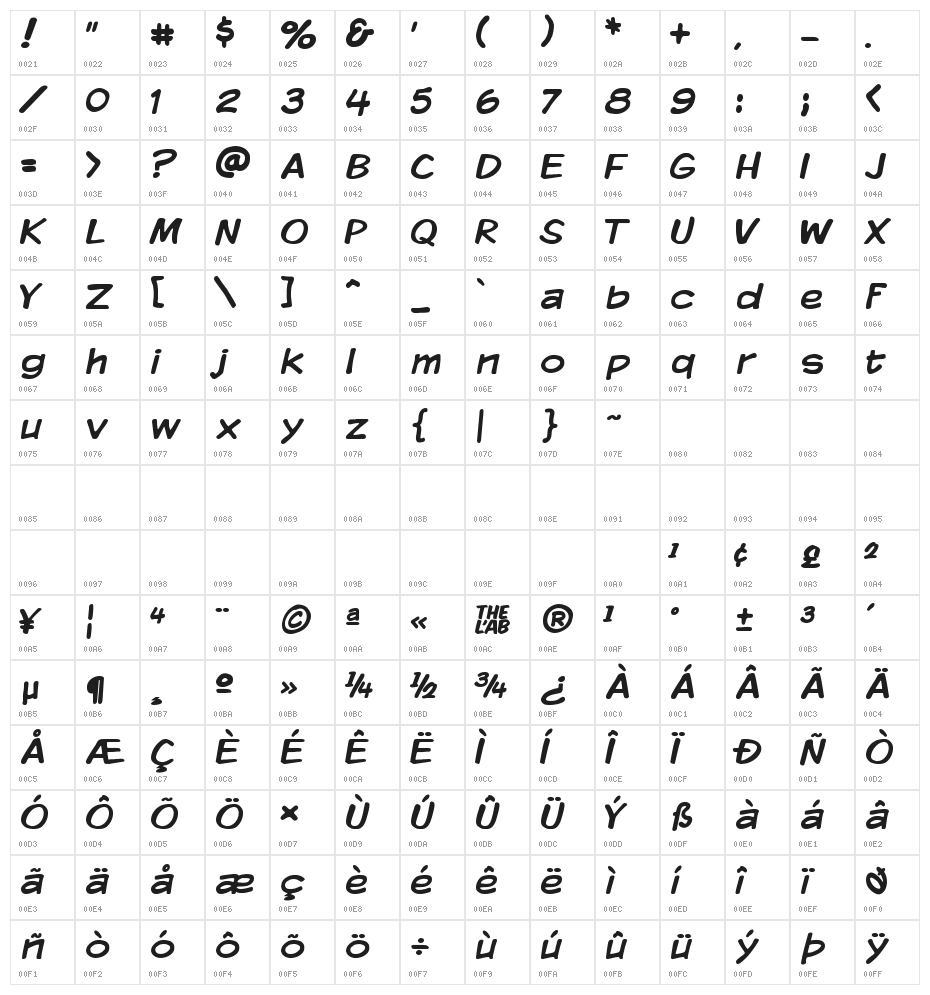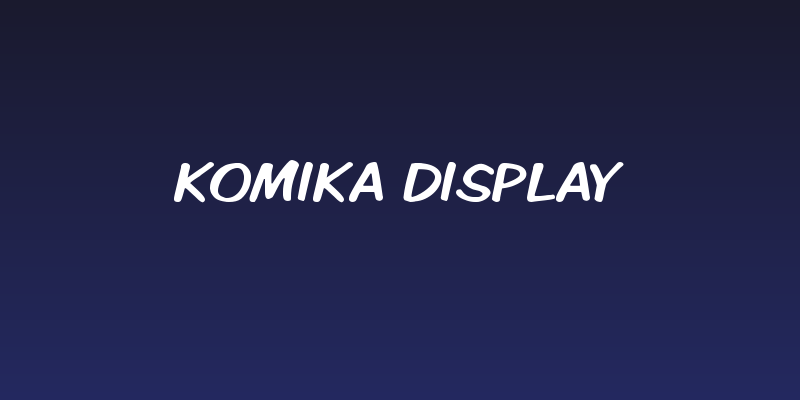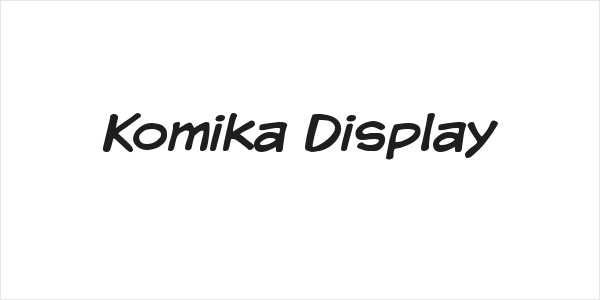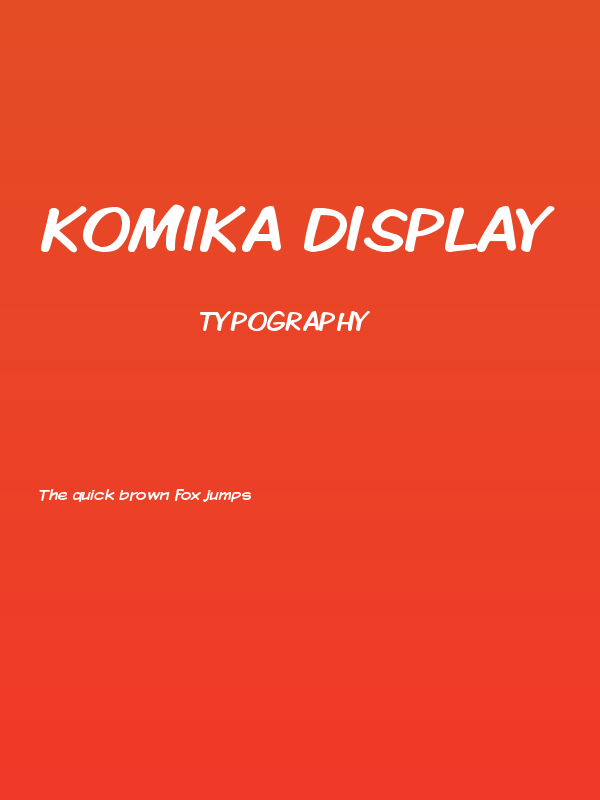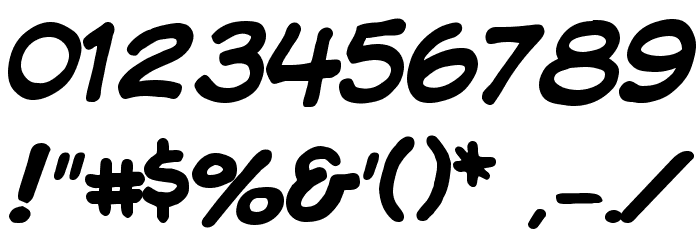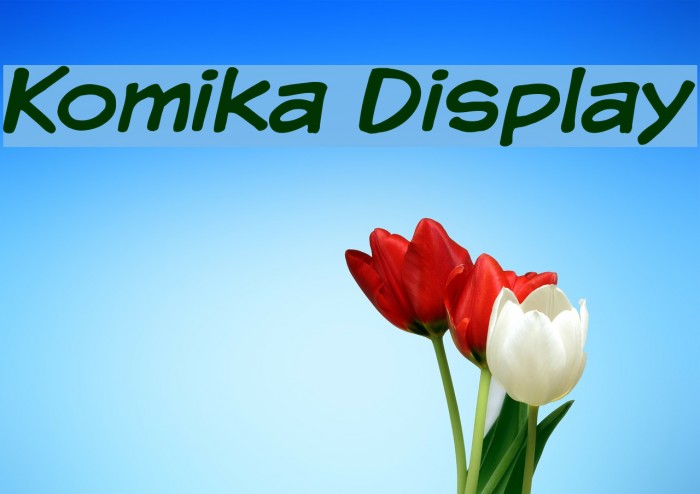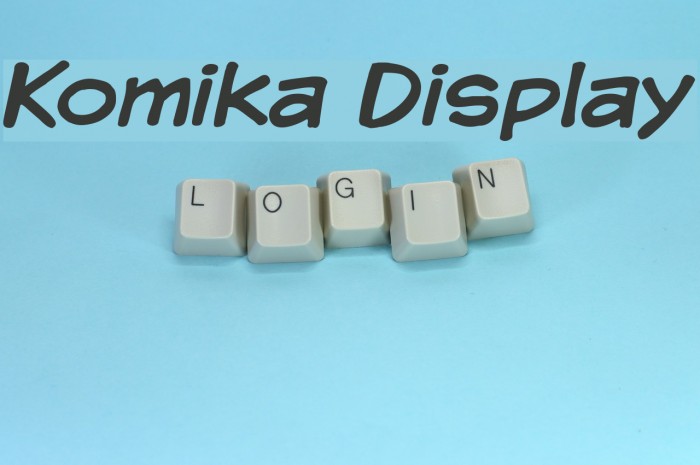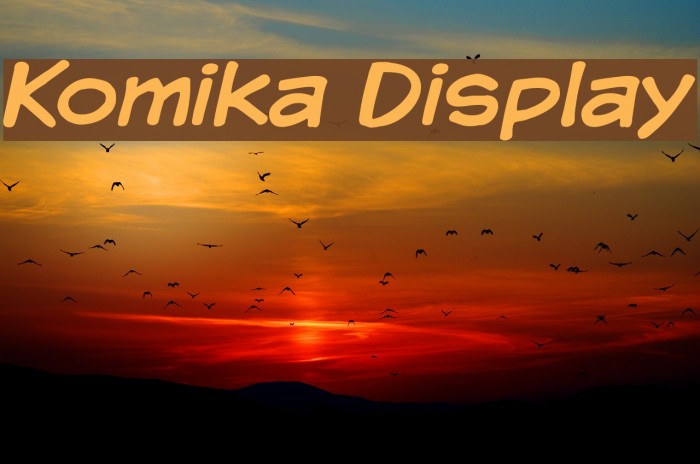
Komika Display Font
Komika Display Description
This playful and bold font features a handwritten style with smooth, rounded edges and a slightly slanted orientation, giving it a casual and friendly appearance. The characters are well-formed with consistent stroke thickness, making them easily readable while maintaining a unique, informal charm. The uppercase and lowercase letters are distinct, with a slight variation in size and shape that adds to the font's whimsical nature. The numbers and special characters are equally bold and expressive, fitting seamlessly with the overall design. This font is ideal for projects that require a fun and approachable aesthetic.
| Proposed Projects | Ideal for comic books, children's books, playful branding, and informal invitations. |